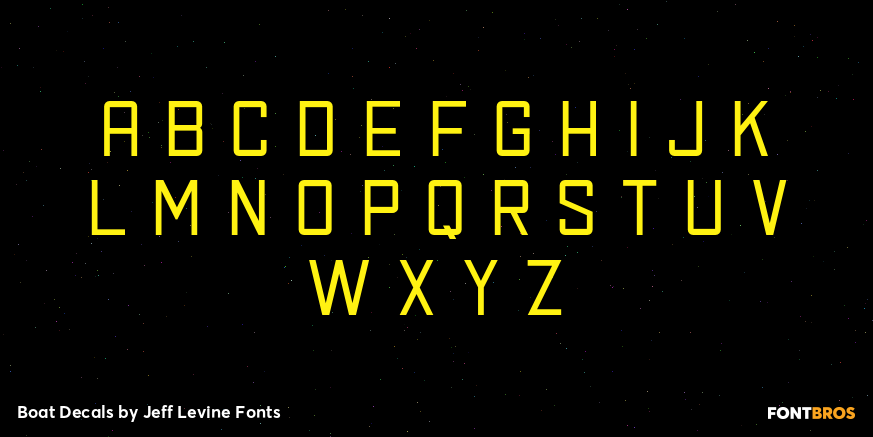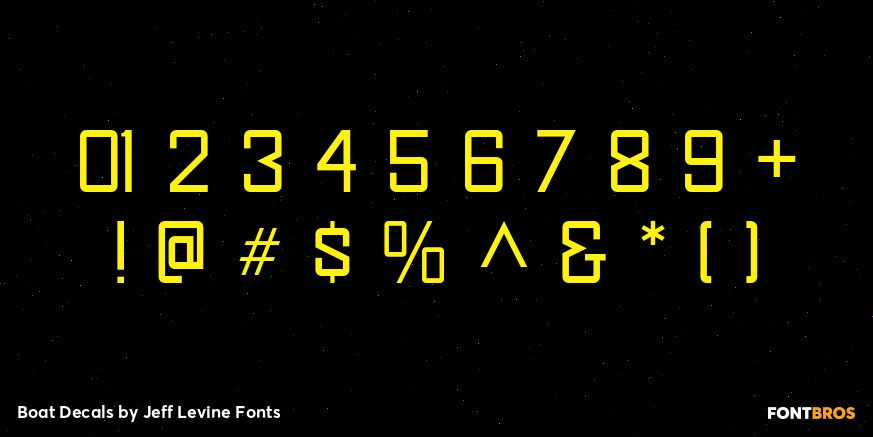
Boat Decals
The simple, square-shaped font that is Boat Decals JNL was loosely based on water-applied decals made by the Duro Decal Company (now Duro Art Industries) of Chicago, Illinois.